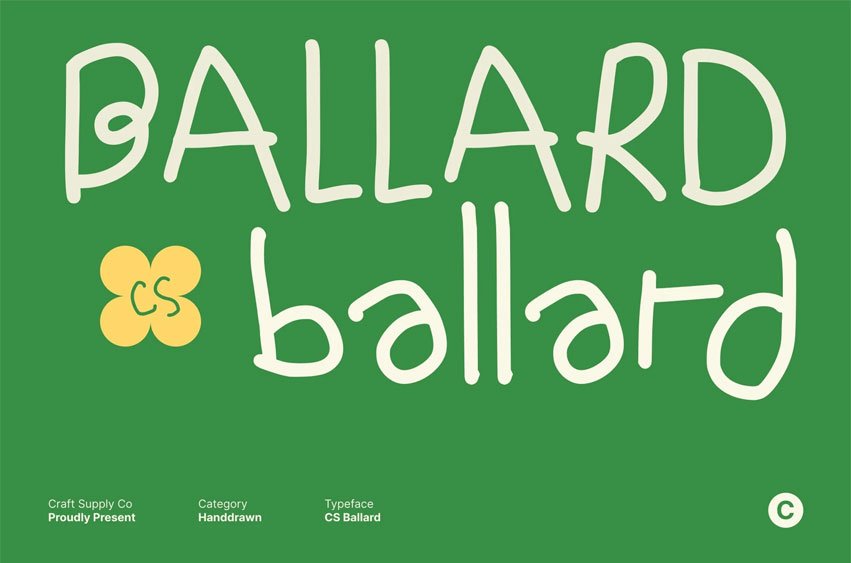
CS Ballard Font
CS Ballard Font is the Beauty of Chaos in Handwritten Form, a Messy Font with a Playful Personality. This is a gritty yet stylish messy font that celebrates imperfection and spontaneity. Designed to look irregular and freely scribbled, it captures the charm of natural handwriting in its rawest, most expressive form. Each letter dances with quirky movement, creating a fun, dynamic energy that instantly brings designs to life.
Irregular Shapes for Authentic Character. With its uneven strokes and spontaneous flow, this font feels like it was drawn by hand in a moment of creative freedom. The organic shapes and imperfect rhythm give the font a sense of authenticity and personality, perfect for projects that value originality over precision.
Playful and Expressive Design Style This font’s messy style radiates joy and creativity, making it perfect for designs that want to feel approachable, youthful, and fun. Its casual energy and scribbled look make it especially suitable for children’s graphics, playful posters, or handmade product branding.
Perfect for Fun and Creative Projects. From kids’ illustrations and playful packaging to DIY-inspired graphics and casual typography, this font adds personality and warmth wherever it’s used. It’s a font that embraces chaos in the best way possible, turning every design into a lively, expressive, and delightfully imperfect work of art.